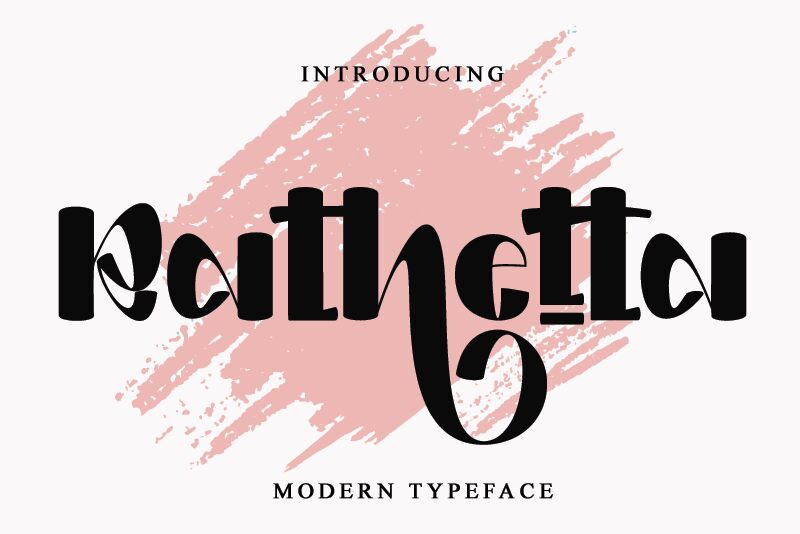
Rathetta, the brainchild of talented designer Harjuno Kristanto, is a visually captivating display font that commands attention with its extra-bold weight and semi-expanded width. This versatile font is perfect for a wide range of projects that demand a bold and impactful presence.
Whether you're designing eye-catching posters, captivating logos, or stunning headlines, Rathetta's unique style will make your content stand out from the crowd. Embrace the power of Rathetta to infuse your designs with an air of confidence and distinction that is sure to leave a lasting impression on your audience.